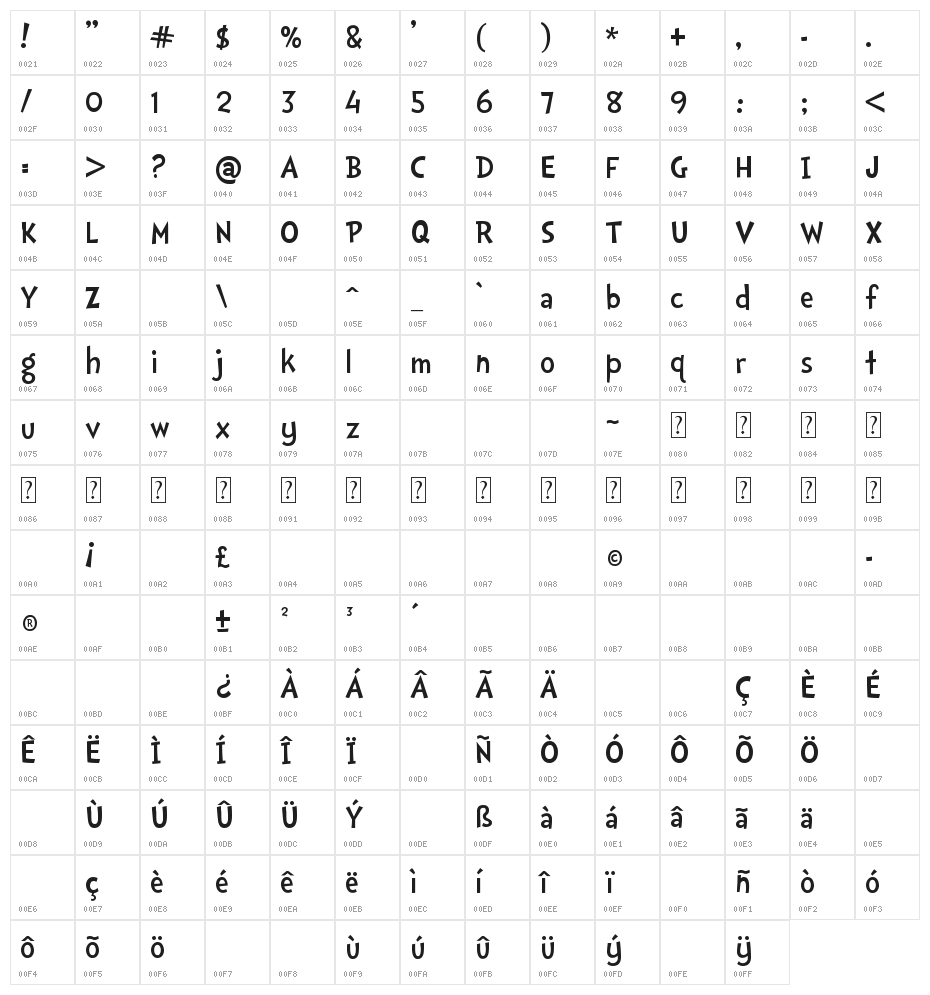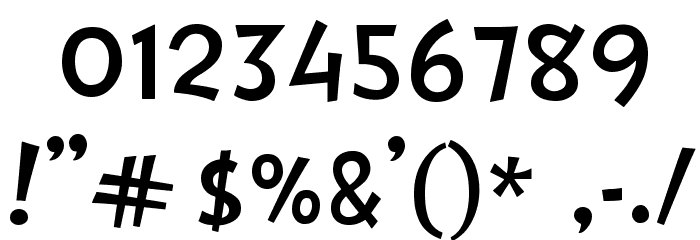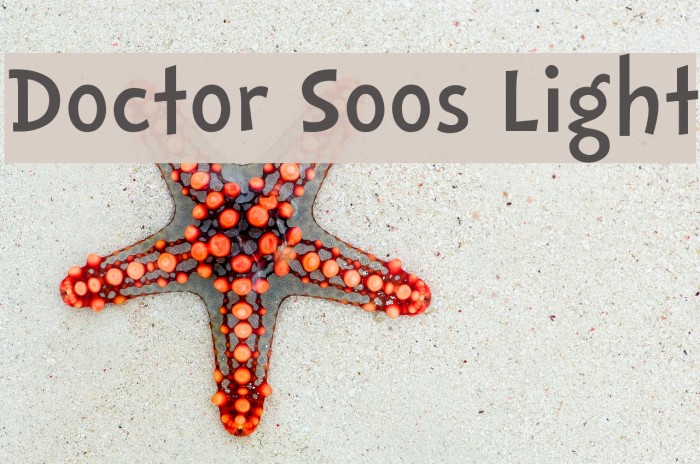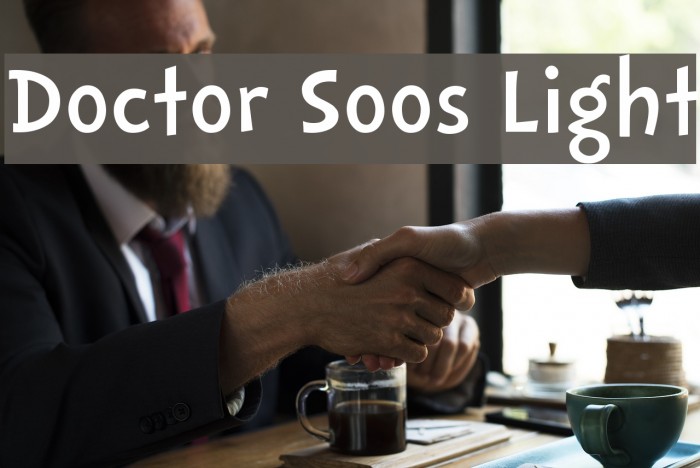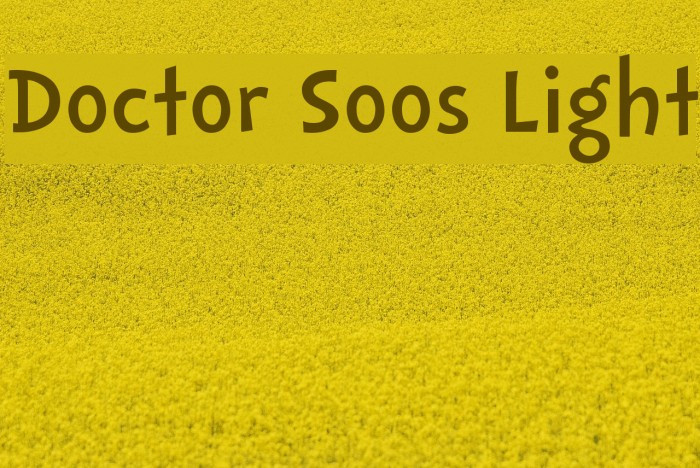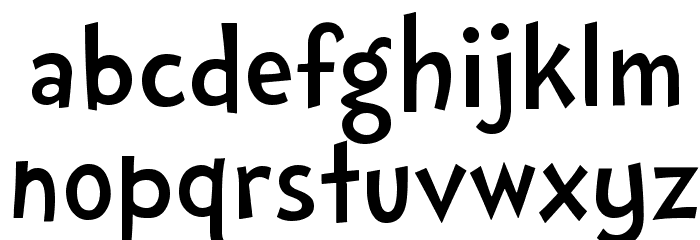
Doctor Soos Light Font
Doctor Soos Light Description
This playful and whimsical font features a unique, hand-drawn style that brings a sense of fun and creativity to any project. The letters have an irregular, bouncy appearance, with varying stroke widths that add to its charm. The uppercase and lowercase letters are distinct, with a slightly exaggerated, cartoonish flair. Numbers and special characters maintain the same lively aesthetic, making this font versatile for various uses. Its informal and friendly look is perfect for projects that aim to capture attention and convey a lighthearted tone.
| Overall Style | Whimsical, Playful |
| Proposed Projects | Ideal for children's books, playful branding, creative posters, and fun invitations. |